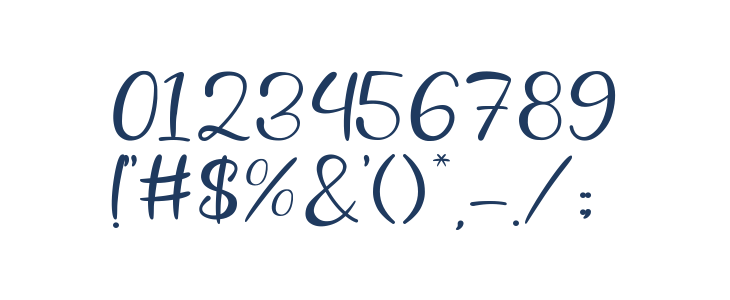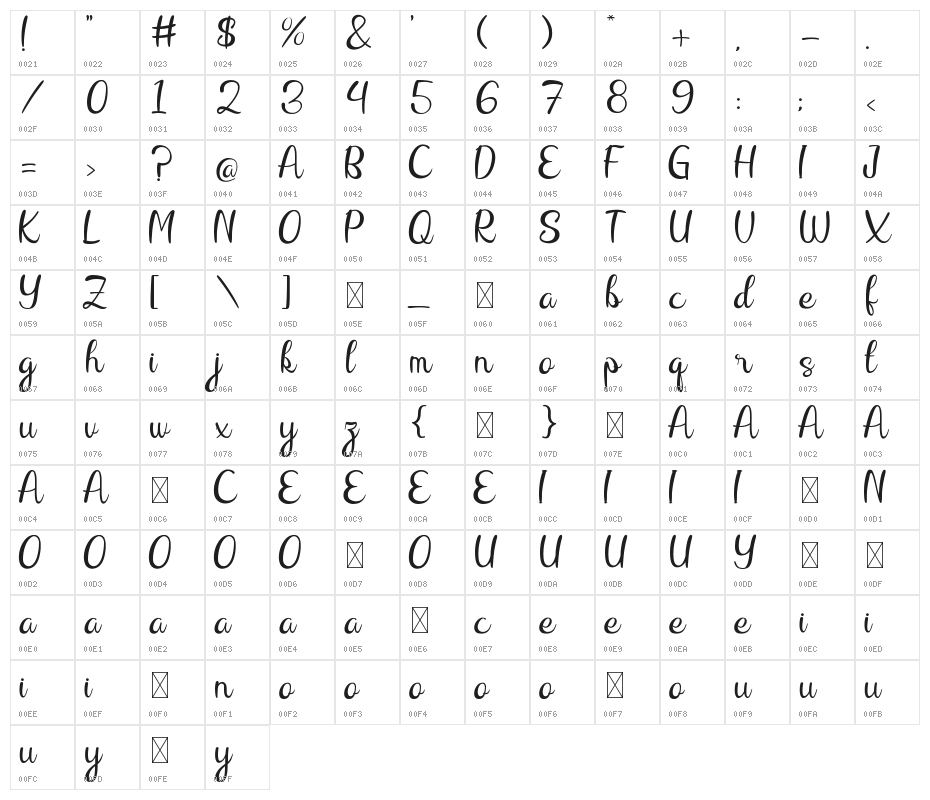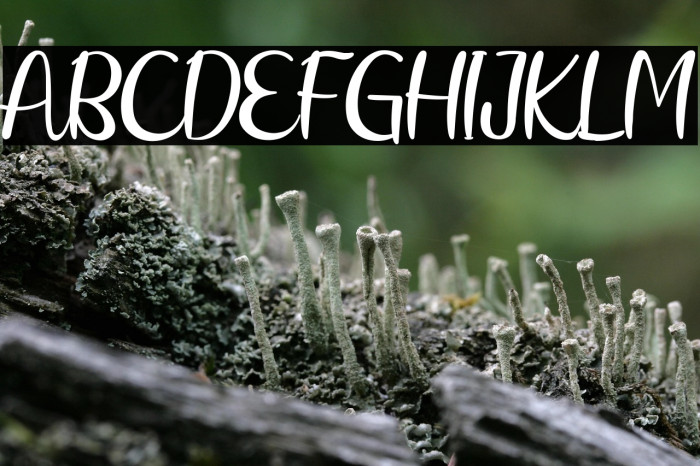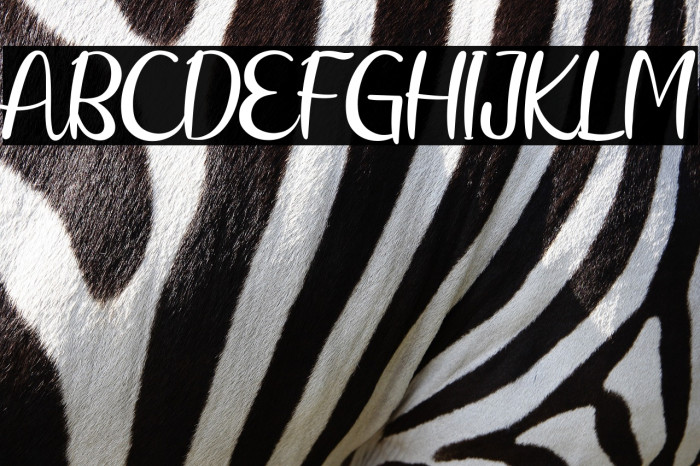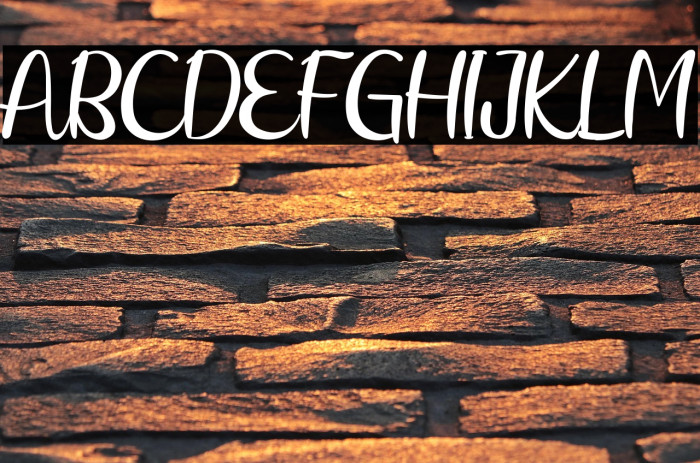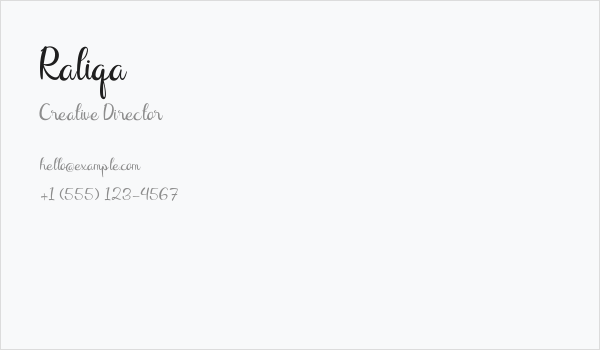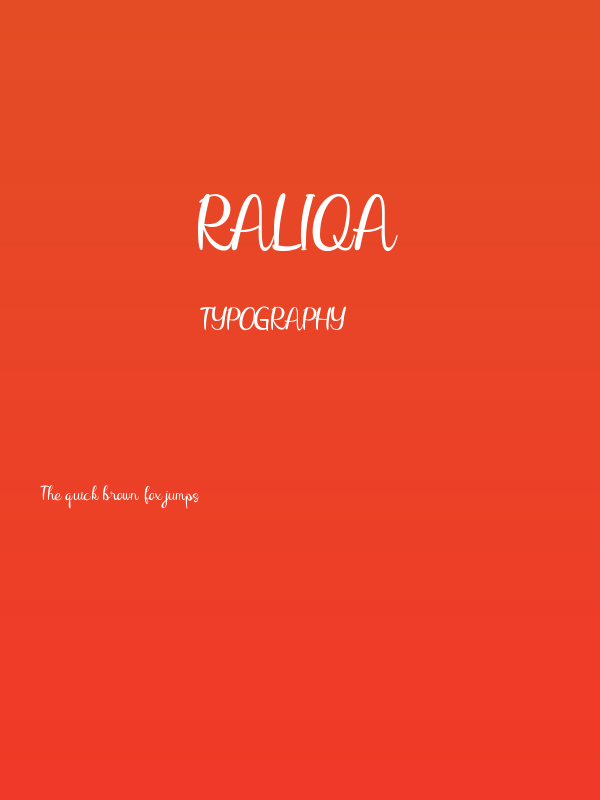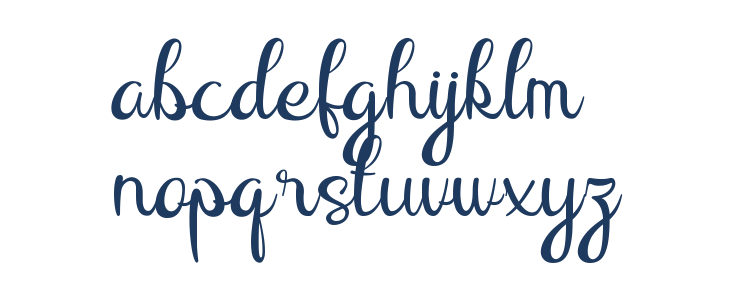
Raliqa Font
Raliqa Description
This font exudes a playful and casual handwritten style, characterized by its fluid and connected strokes. The letters are crafted with a natural flow, giving an impression of personal touch and warmth. The uppercase letters maintain a consistent height, while the lowercase letters exhibit a charming irregularity, adding to the font's informal appeal. The numerals are rounded and maintain the same playful essence, ensuring readability. Special characters are seamlessly integrated, maintaining the overall aesthetic. This font is perfect for projects that require a personal and approachable feel.
| Overall Style | Casual |
| Use Case | Logos, Headlines, Invitations |
| Proposed Projects | Ideal for greeting cards, invitations, personal branding, and social media graphics. |